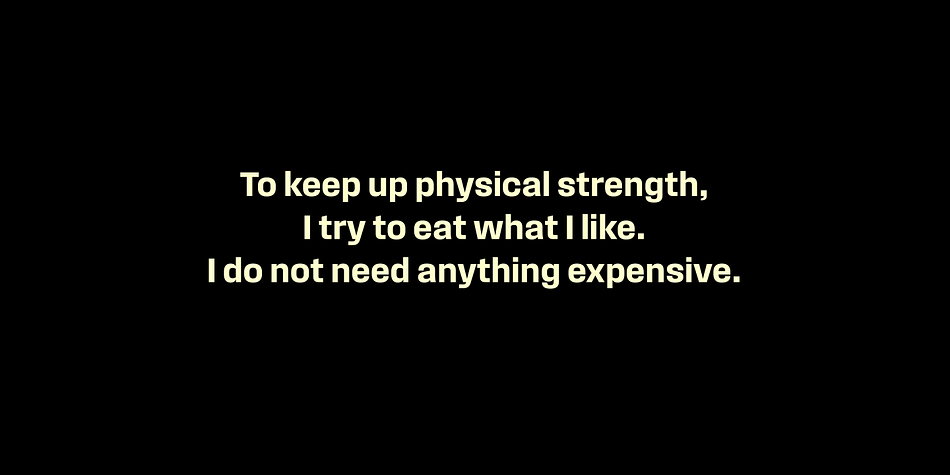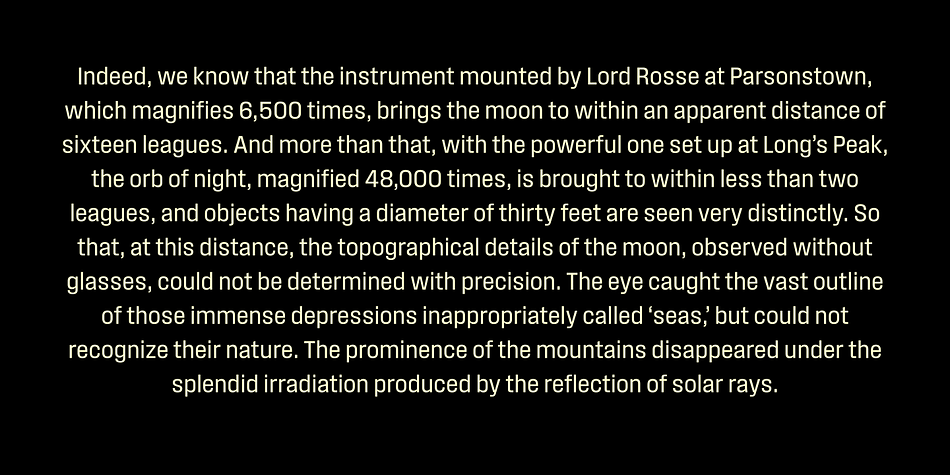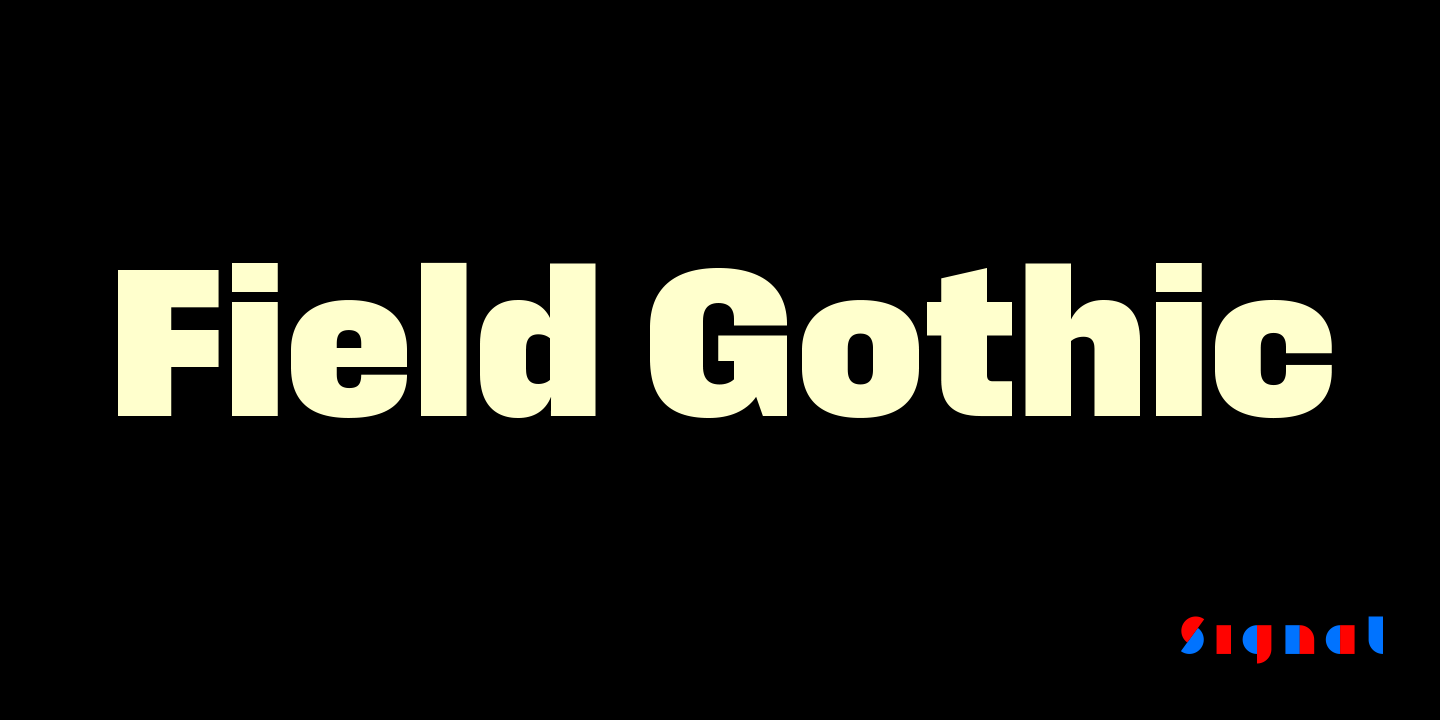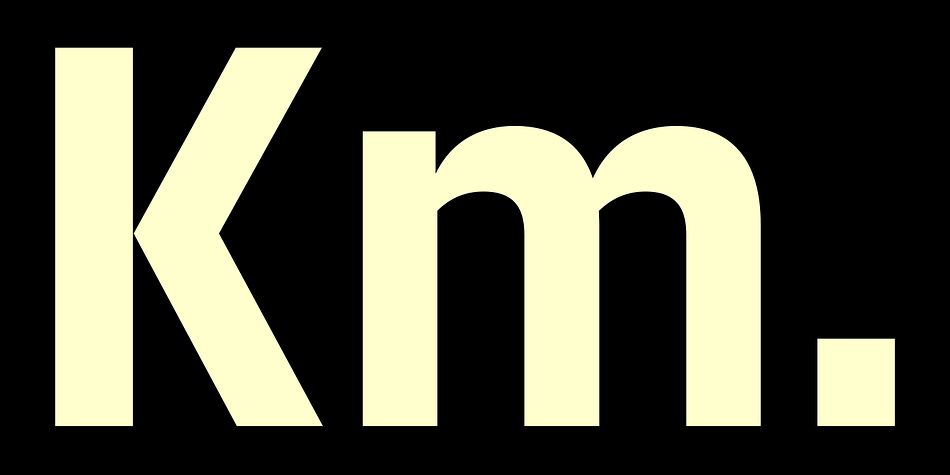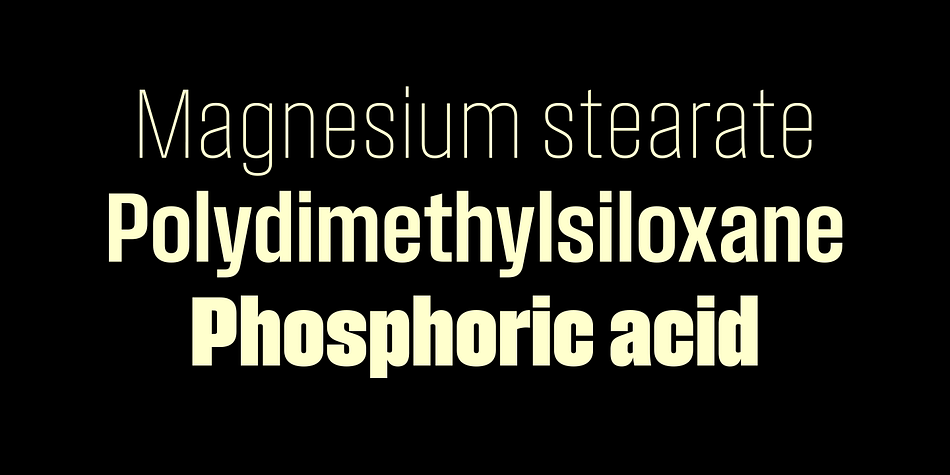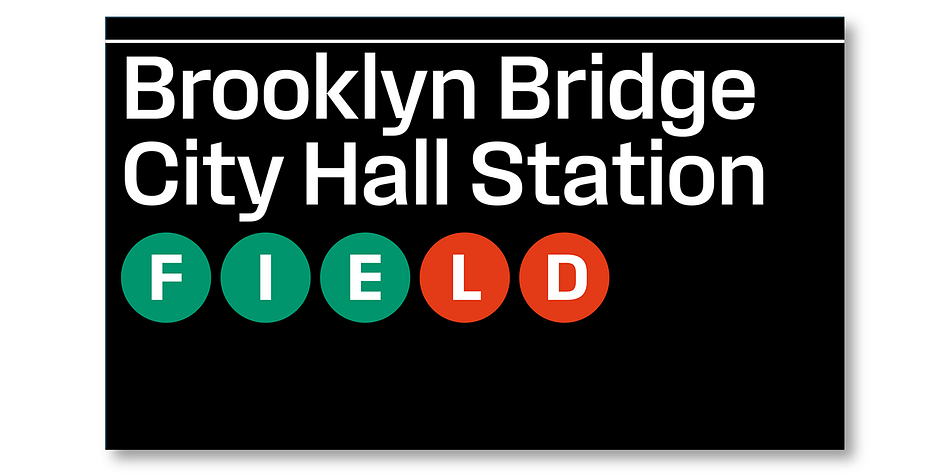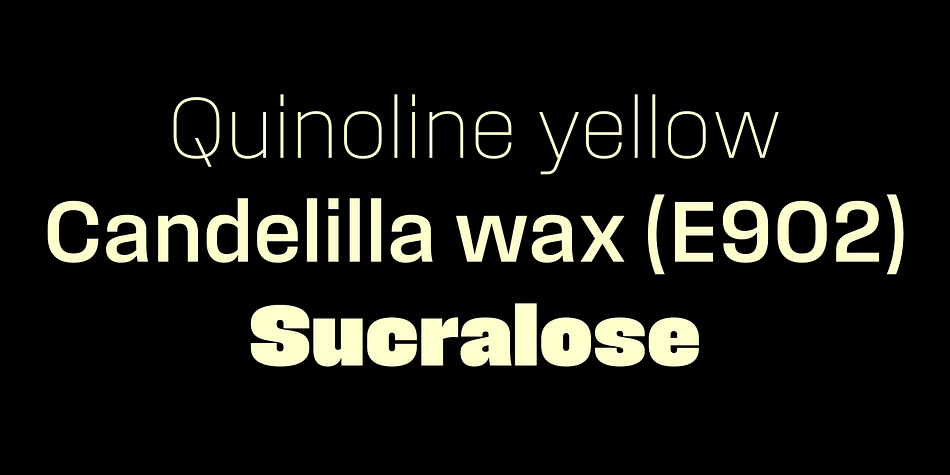
Field Gothic
Designed by Max Phillips, Field Gothic is a sans serif font family. This typeface has twenty-four styles and was published by Signal Type Foundry.
Field Gothic is an eight-weight, eight-width journey through the history of American and European sanses. As with the Narrow and Wide ranges, the look of our Standard range is crisp and on the cool side, with slightly superelliptical curves. The lightest weights are almost monoline; above that, arches and bowls have sharply contrasting junctures and a snug fit. The eight Compact styles are economical but not too narrow for text settings; the eight normal-width styles, inspired by old Unimark subway signs, are clear, sturdy, and pleasant to read as either text or titling.
Designer Max Phillips